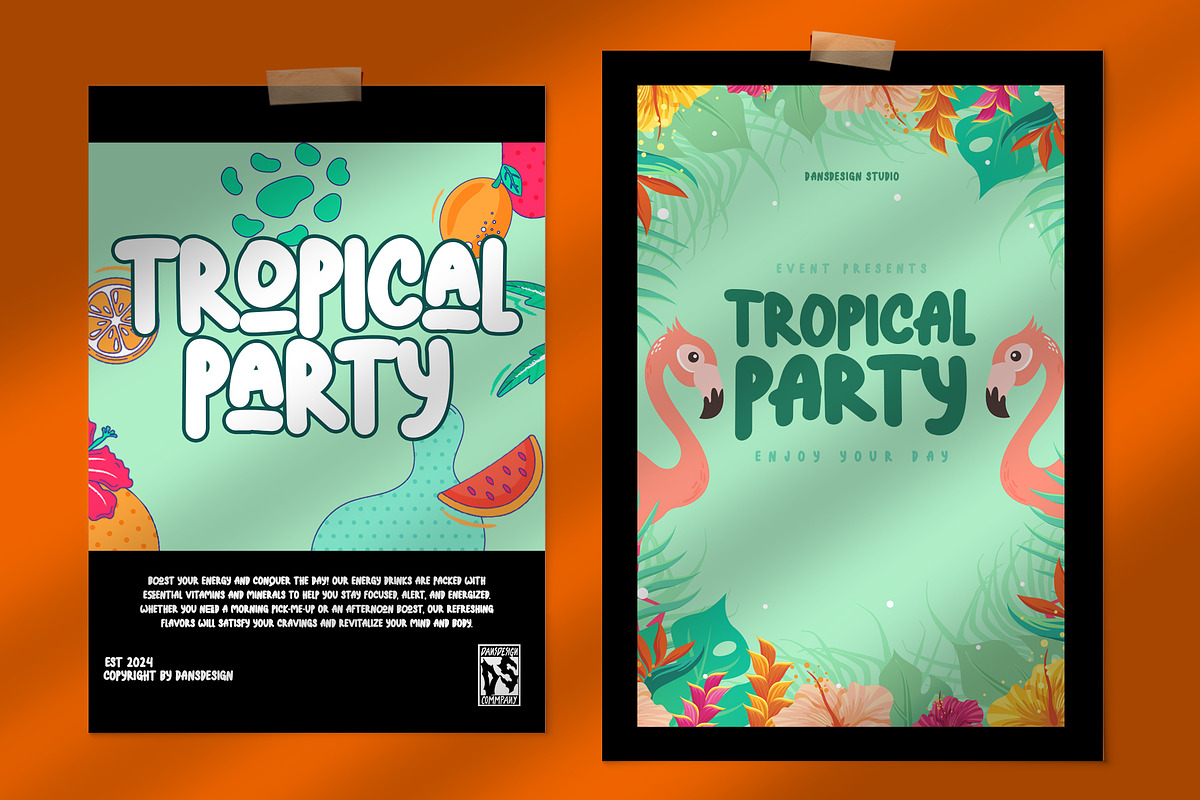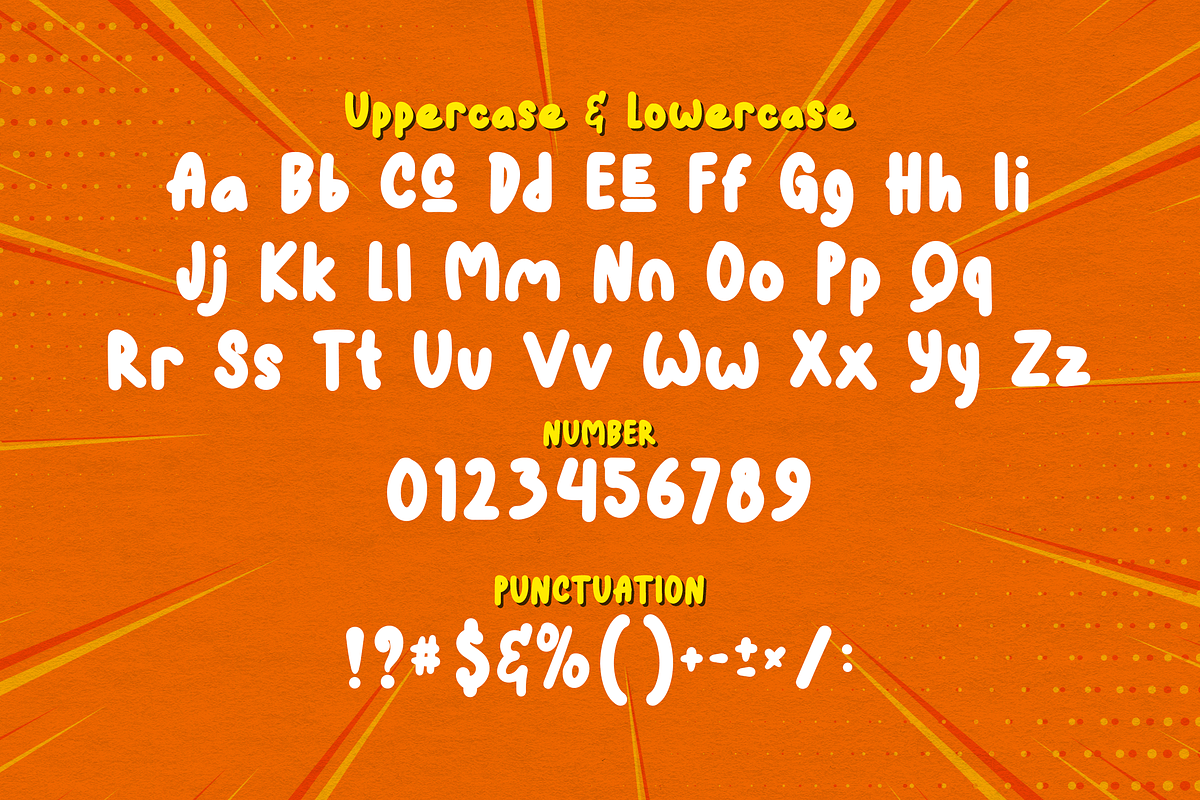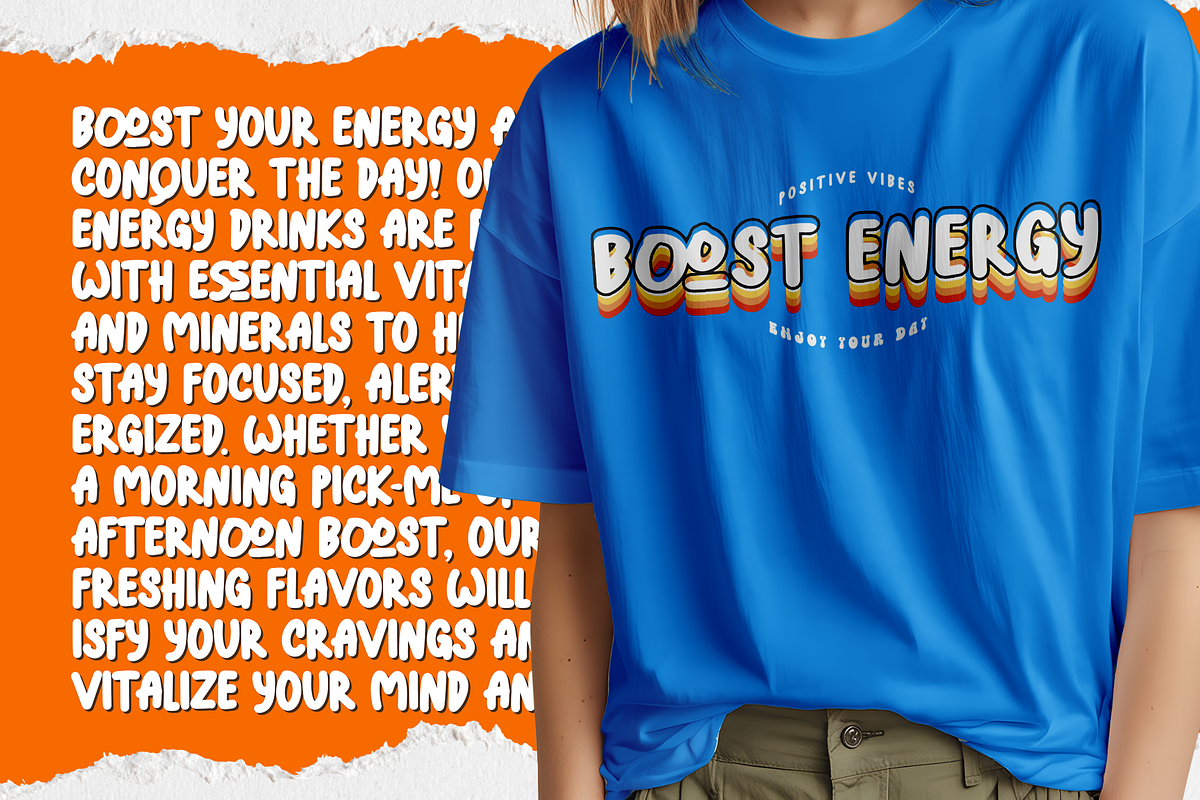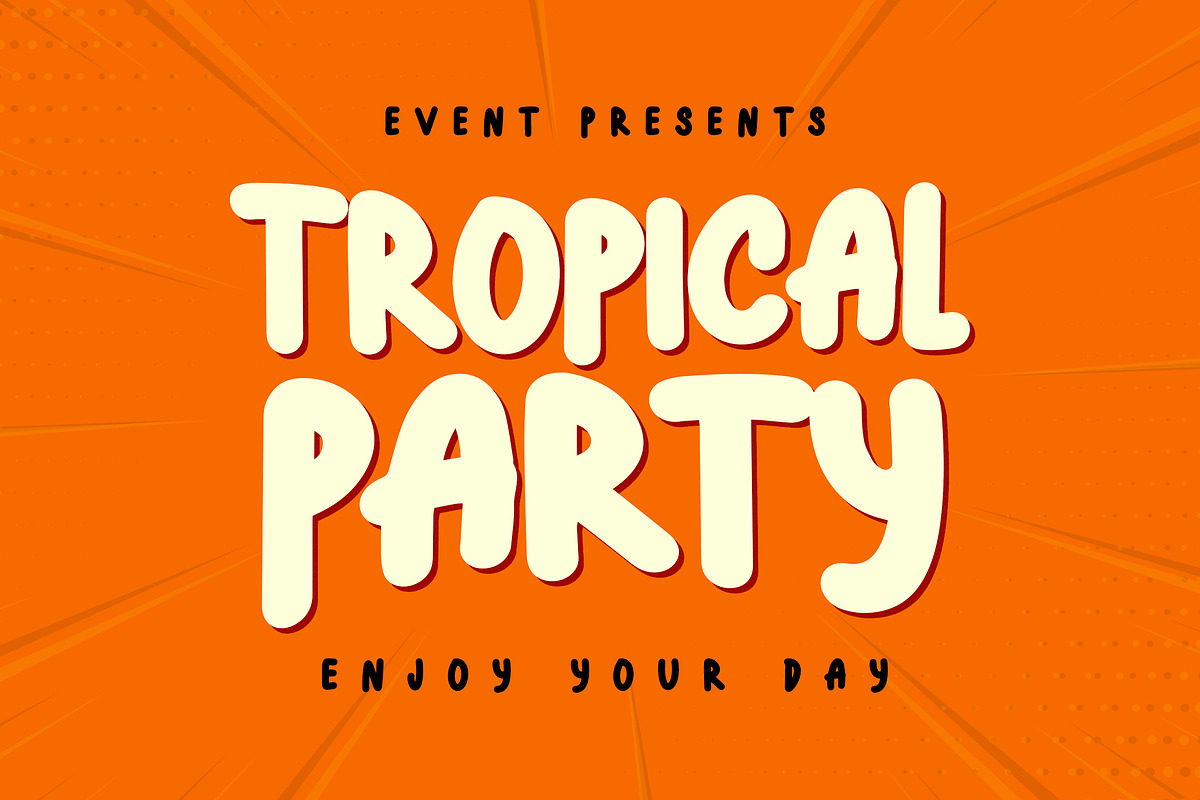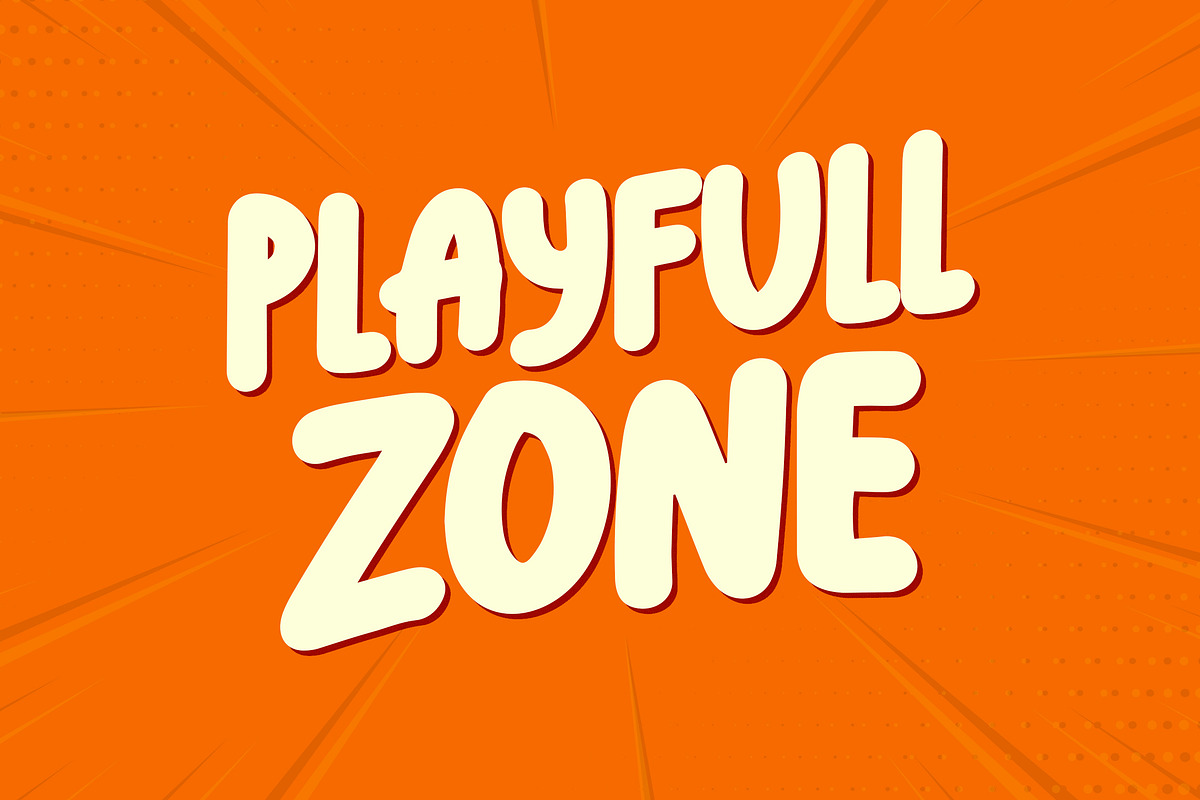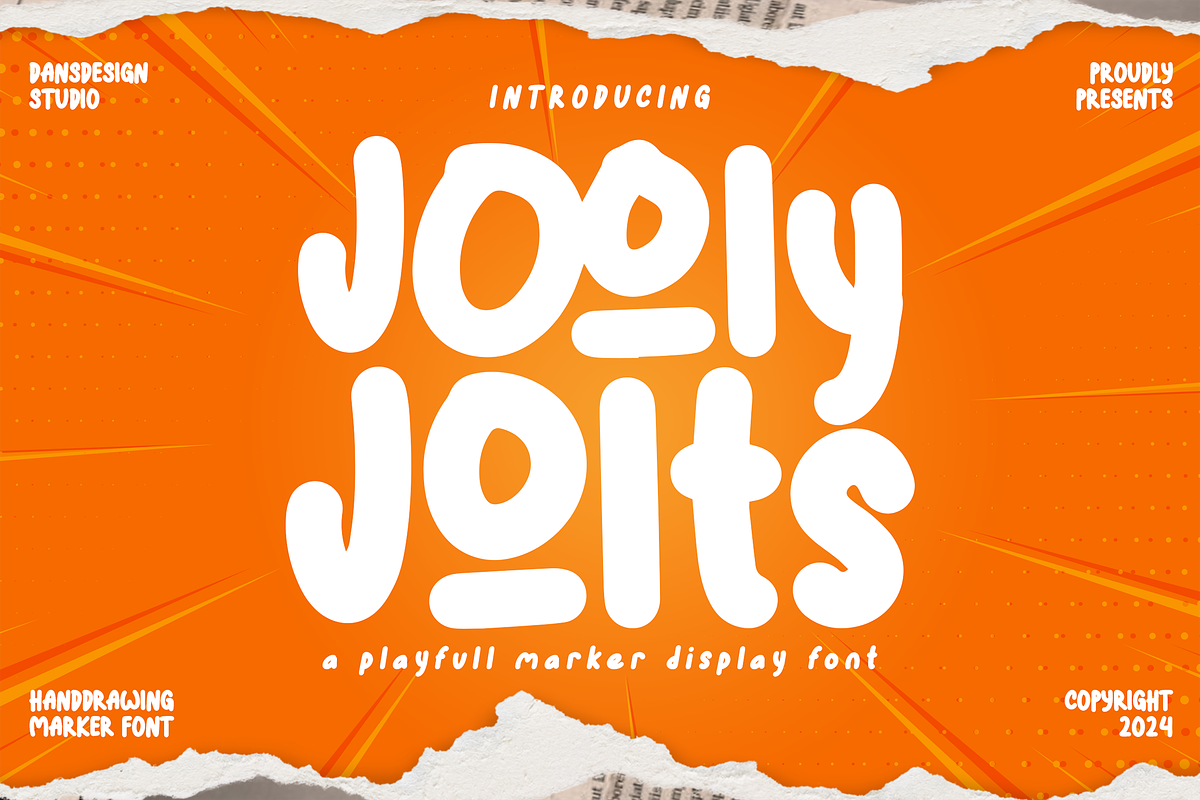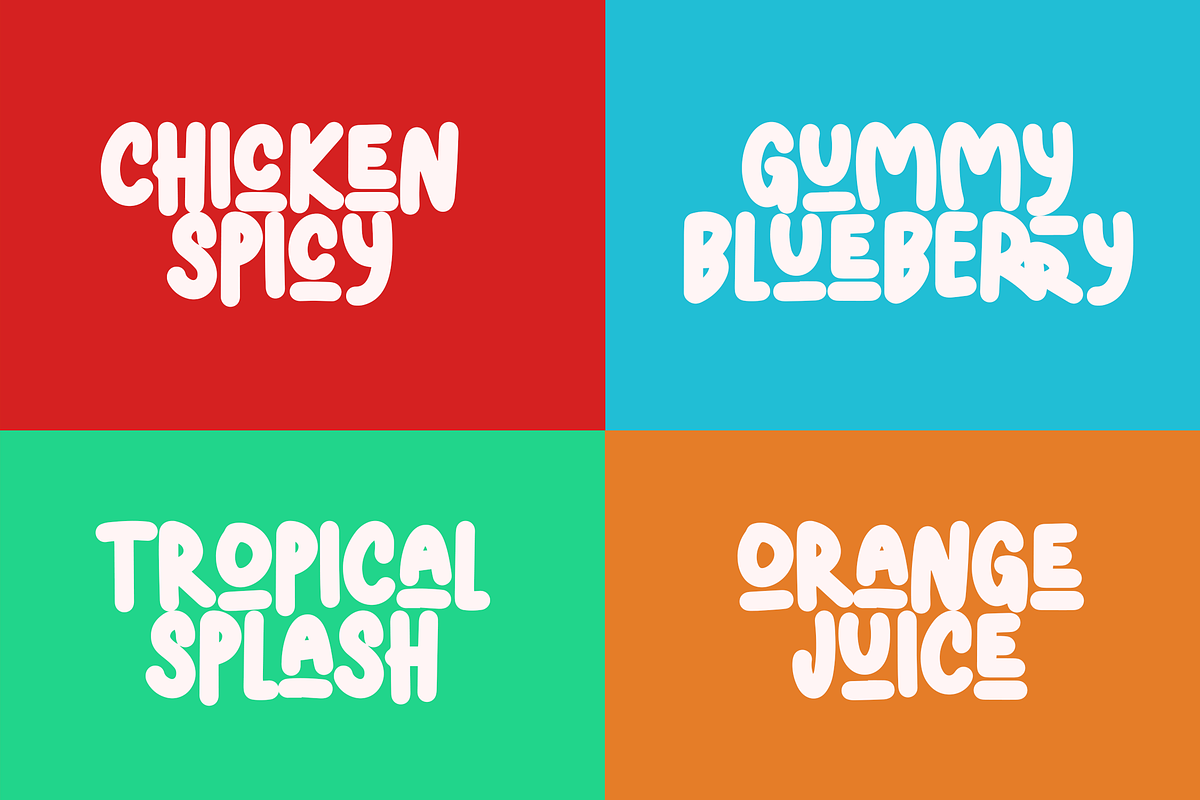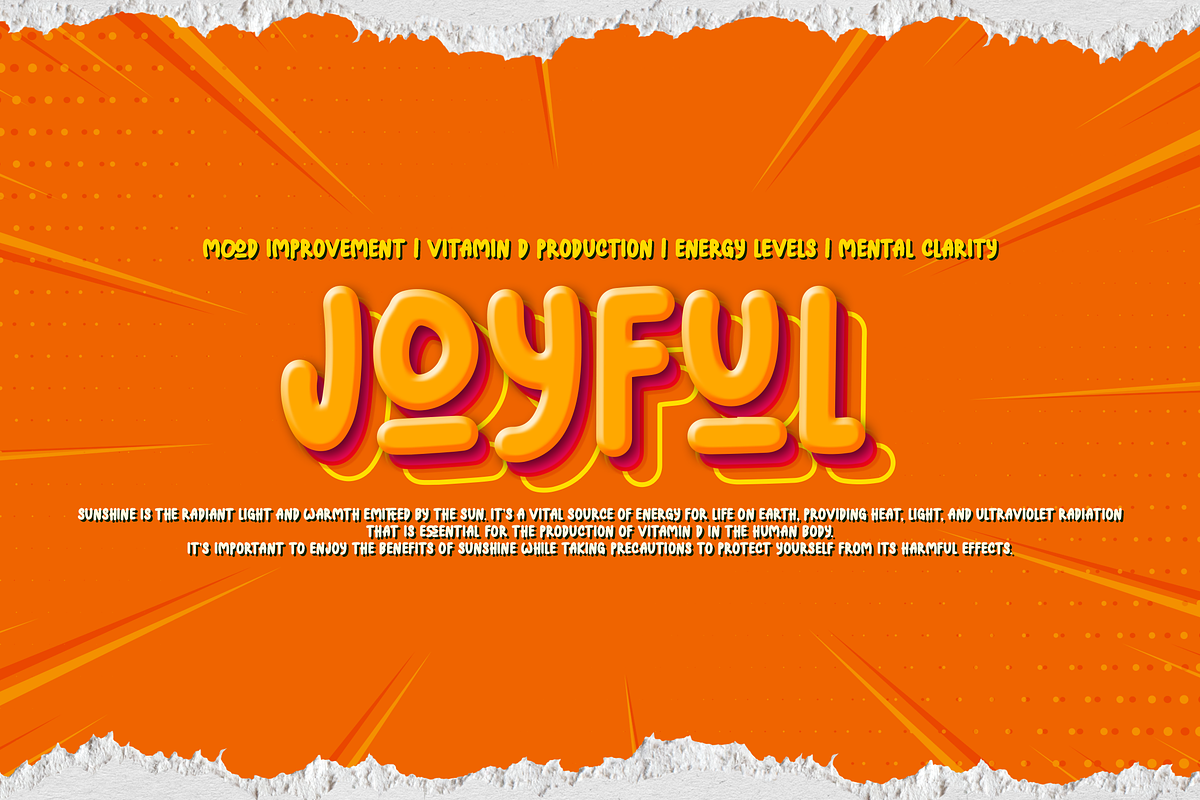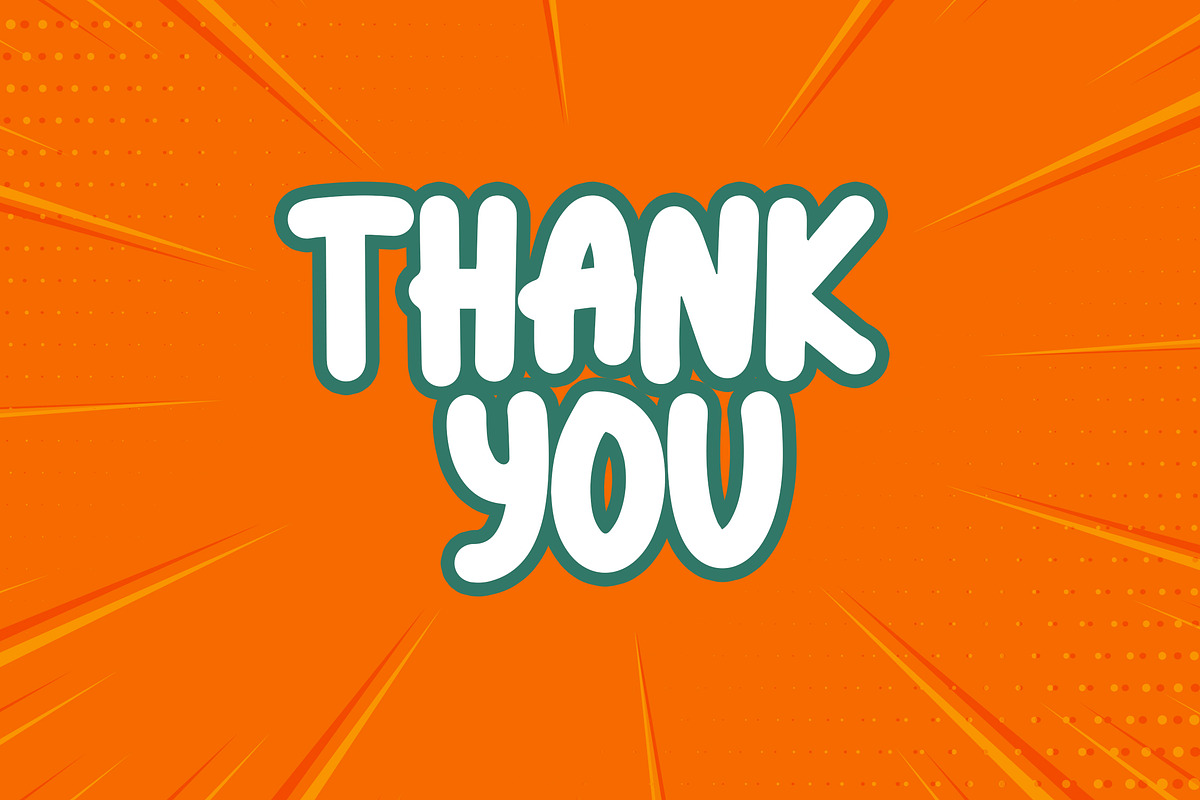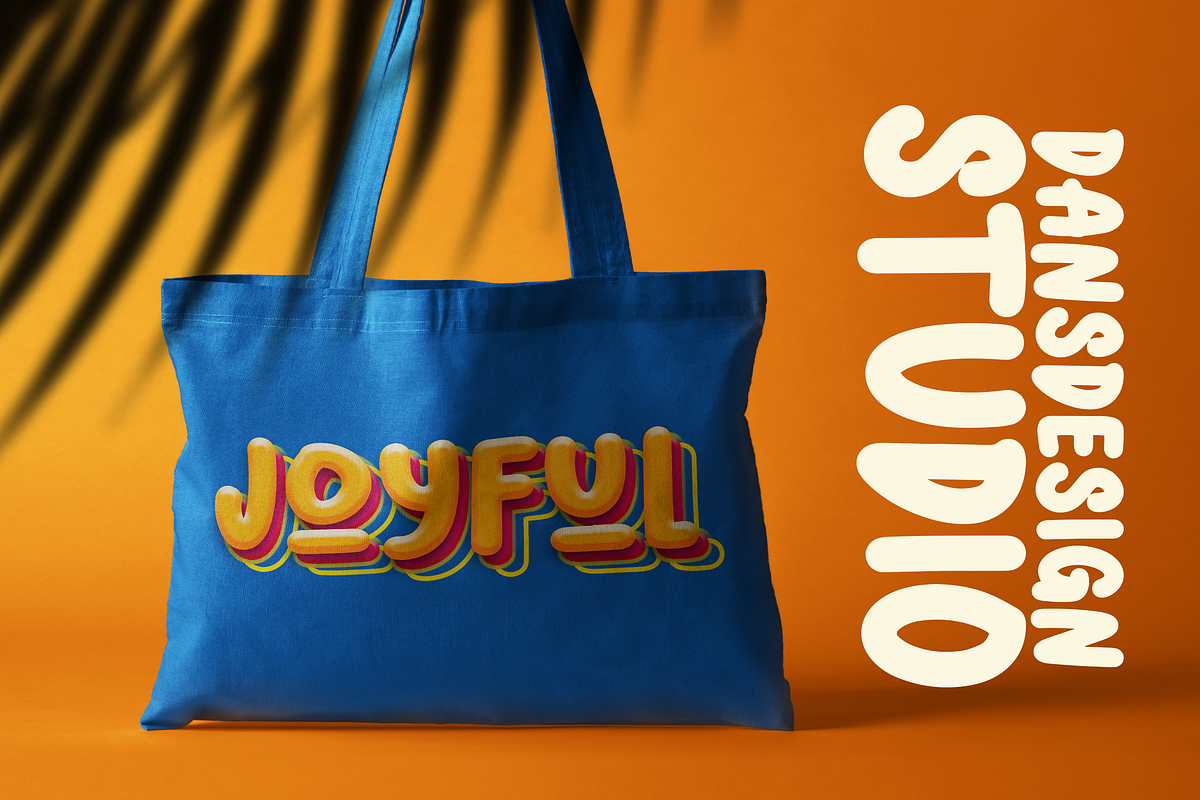
Jooly Jolt Playful Marker Display
Jooly Jolt Playful Marker Display Font is a distinct, highly detailed Playful Marker Display Font. It would make a great choice for exquisite retro-urban designs, business branding, logos, Apparel designs, and more.